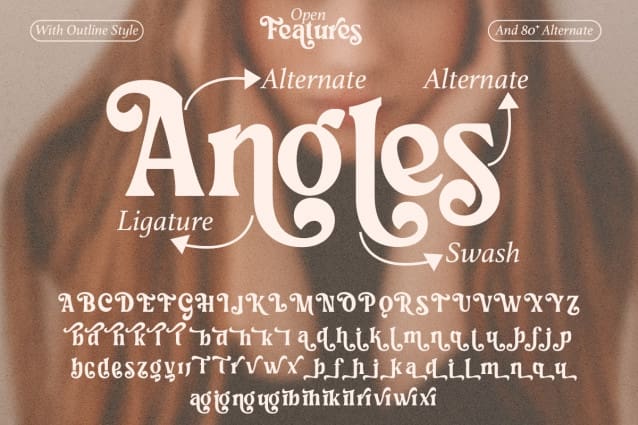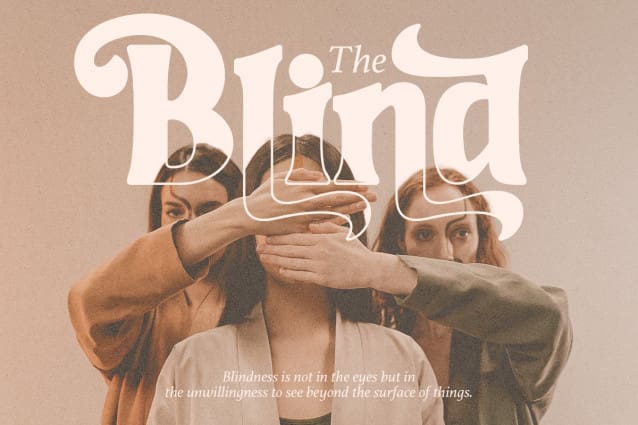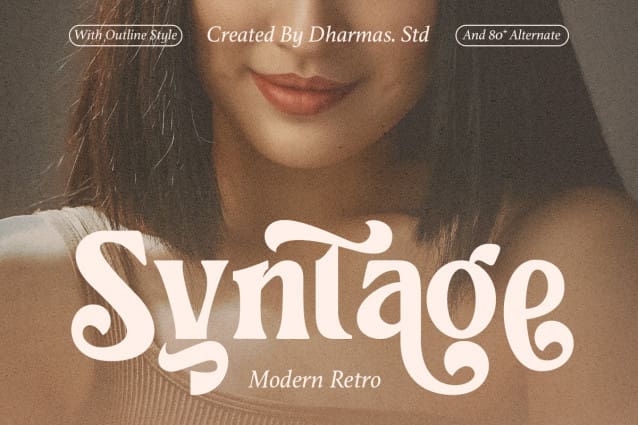
Syntage Font
Syntage Font – a brand new serif with all the nostalgic vibes!. I’ve started seeing classic, tightly-spaced serifs of the 80s & 90s making a comeback, and wanted to create the perfect one for you too!
Syntage Font is a beautifully nostalgic upper and lowercase typeface and has 80+ Special Alternates that looks incredible in both large and small settings as a display and body text.